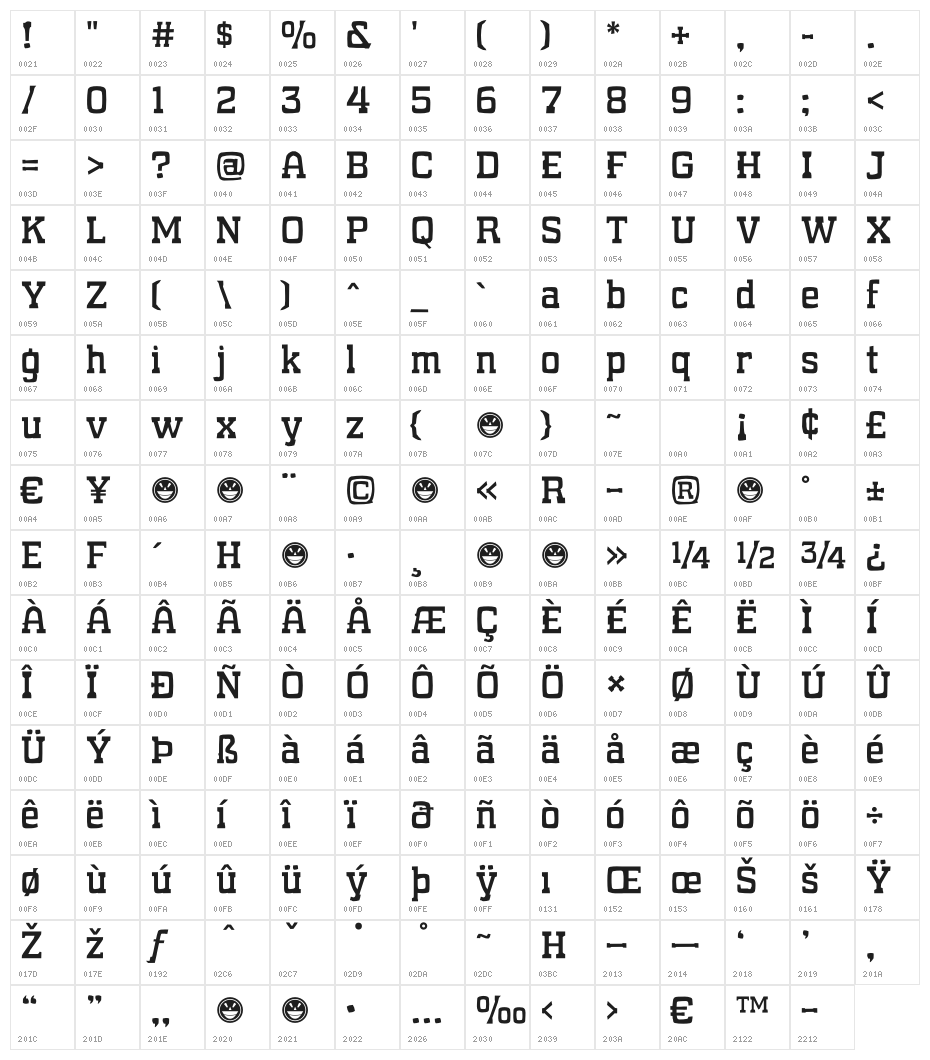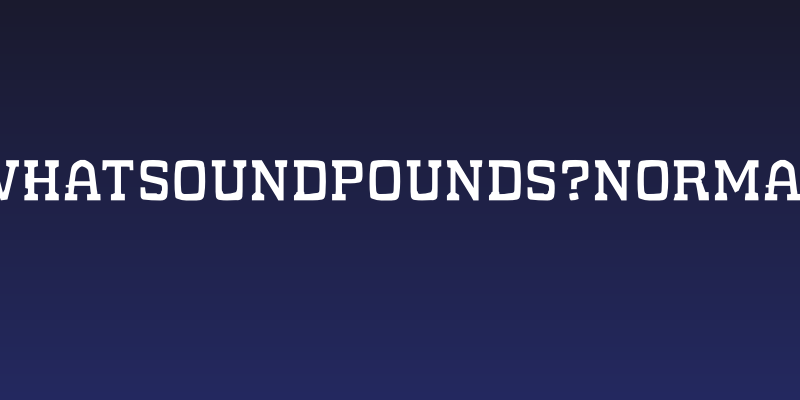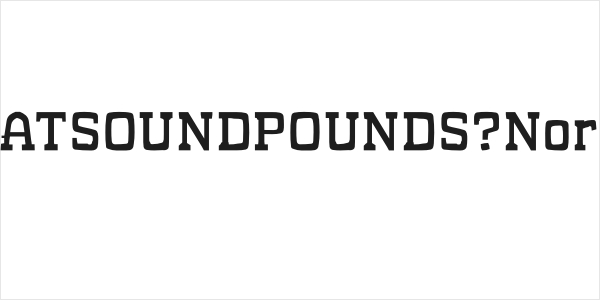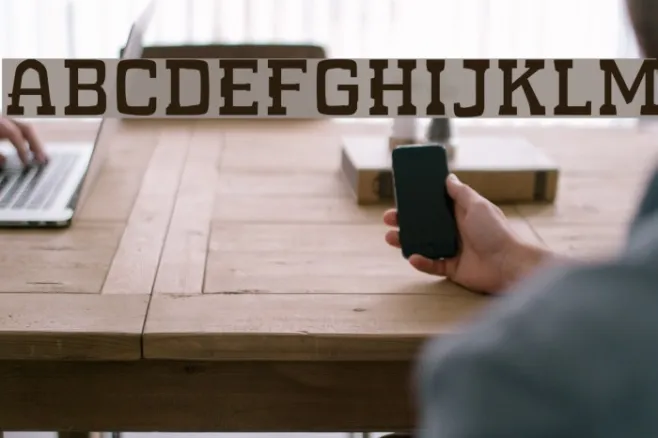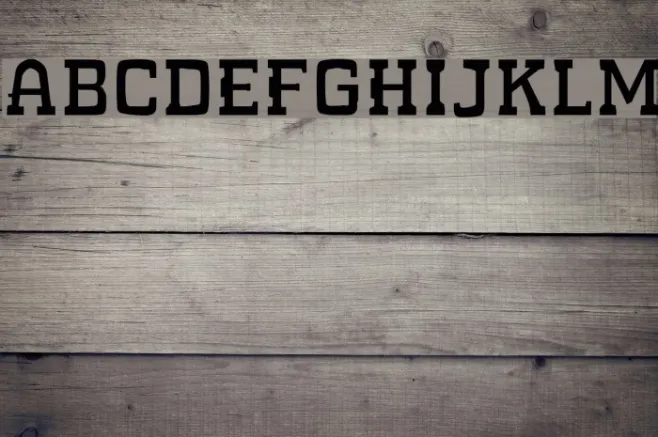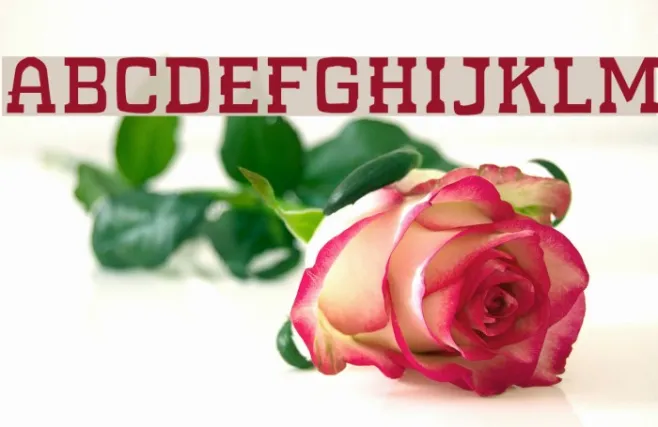
WHATSOUNDPOUNDS?Normal Font
WHATSOUNDPOUNDS?Normal Description
This font features a bold and robust slab serif style, characterized by thick, block-like serifs and a strong presence. The uppercase letters are uniform in height, with a slightly condensed appearance, while the lowercase letters maintain a consistent x-height, providing a balanced look. The numerals are distinct and easy to read, with a geometric influence that adds to the font's modern appeal. Special characters are well-integrated, maintaining the overall aesthetic. The font's design is suitable for creating impactful headlines and titles, offering a sense of authority and confidence.
| Proposed Projects | Ideal for posters, branding, editorial headlines, and signage. |